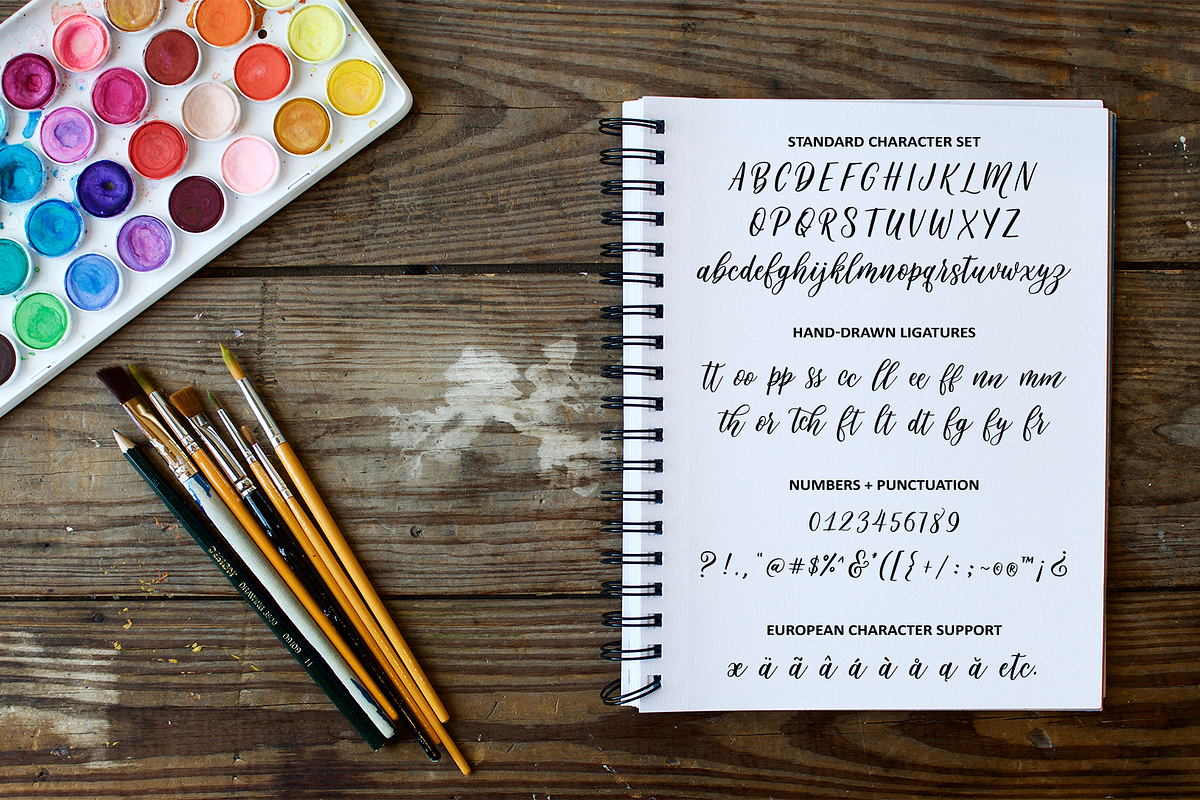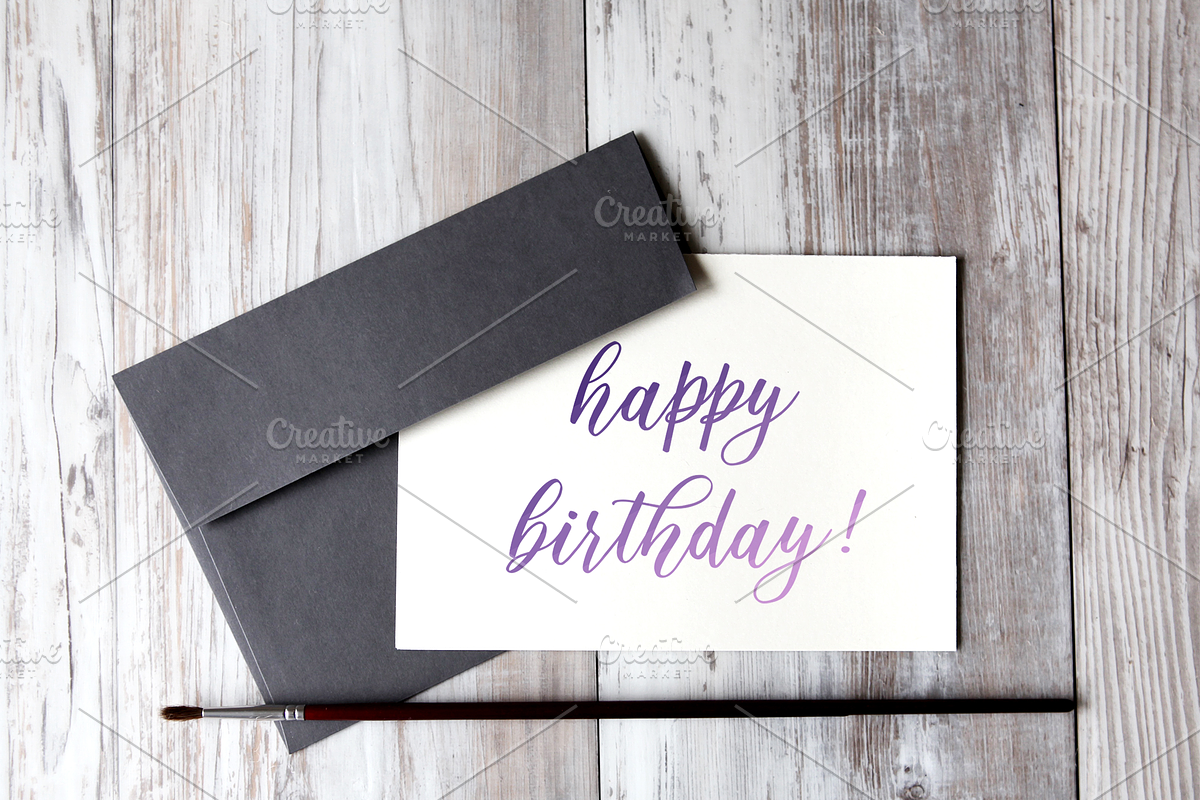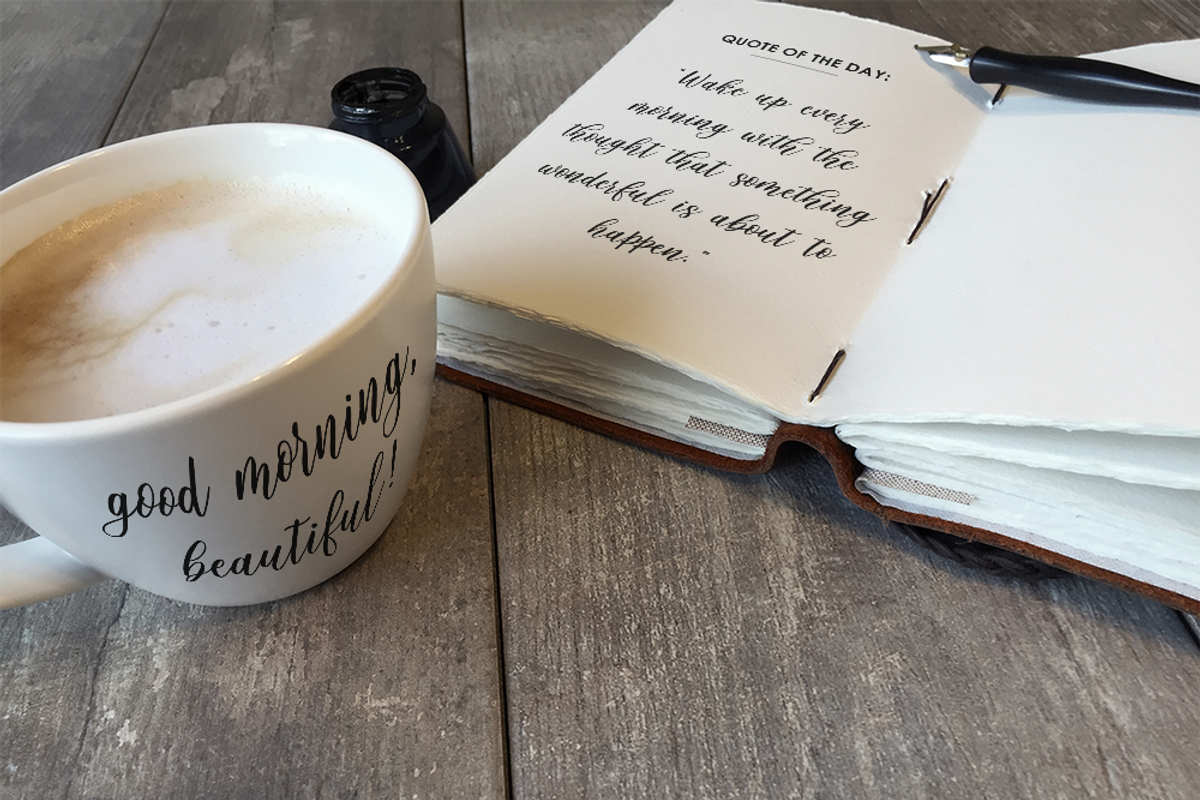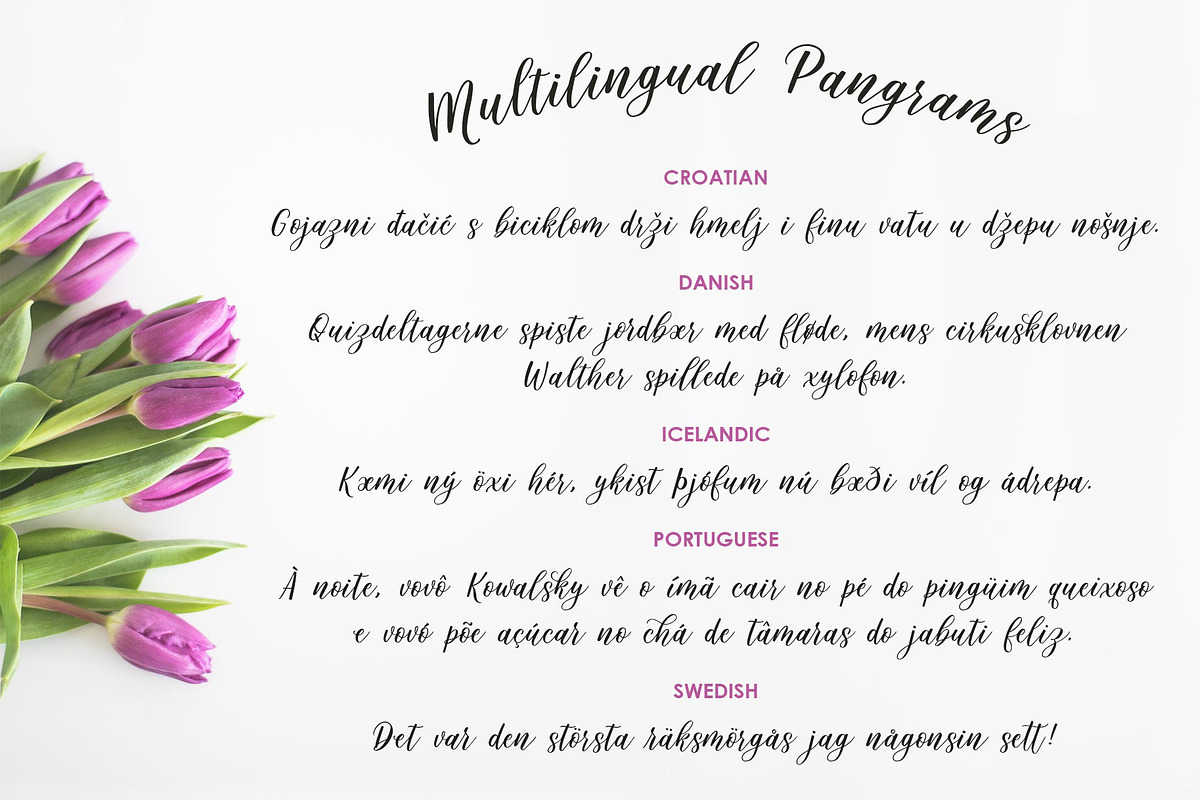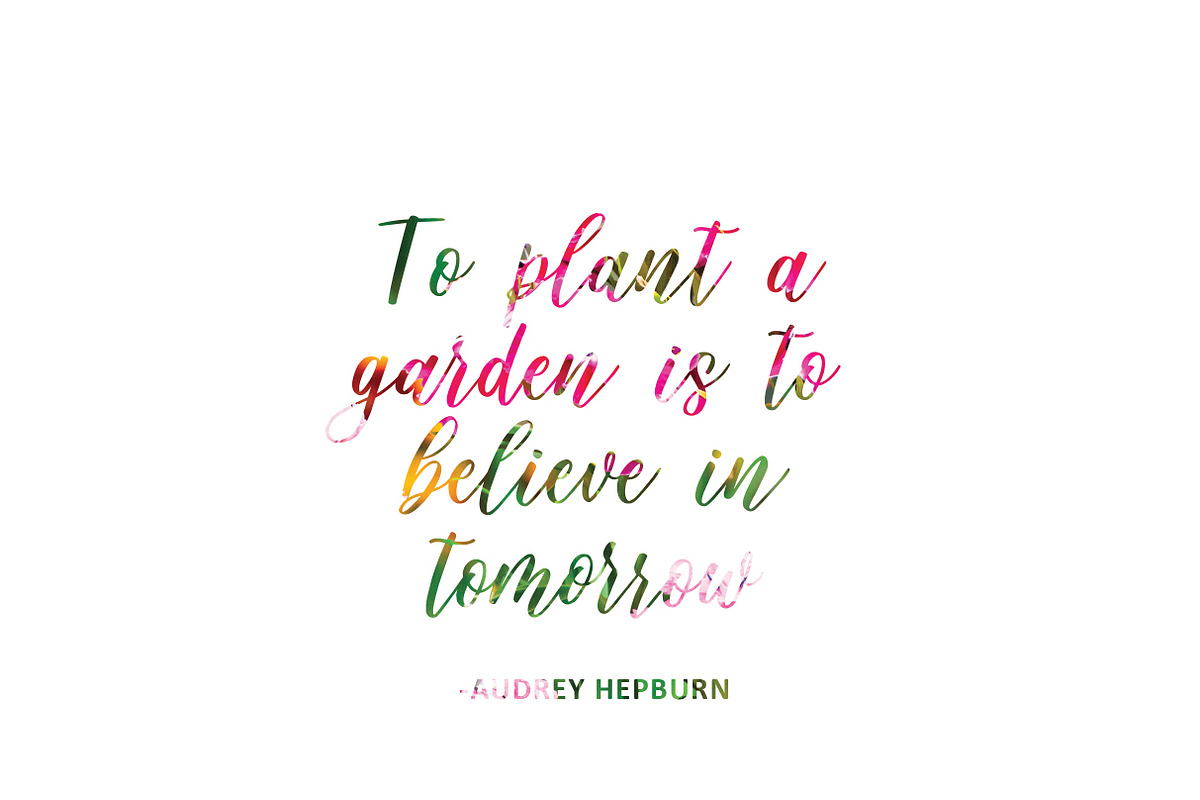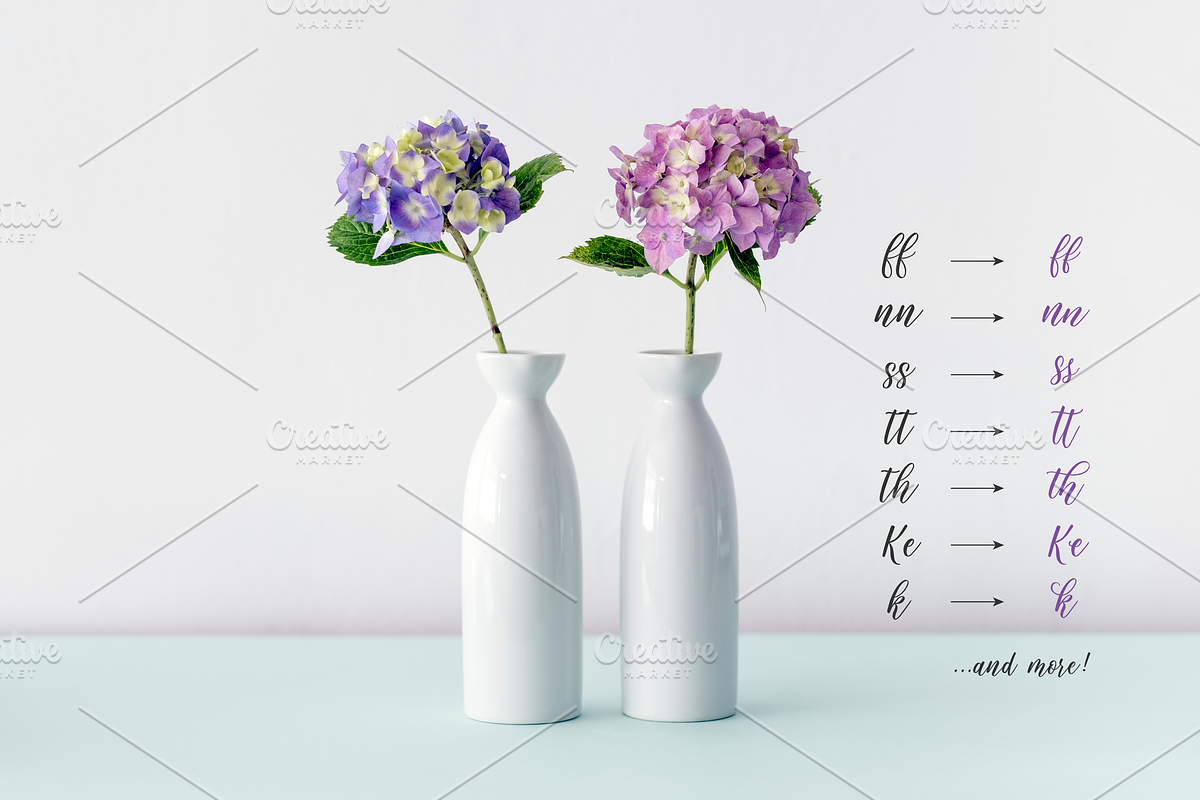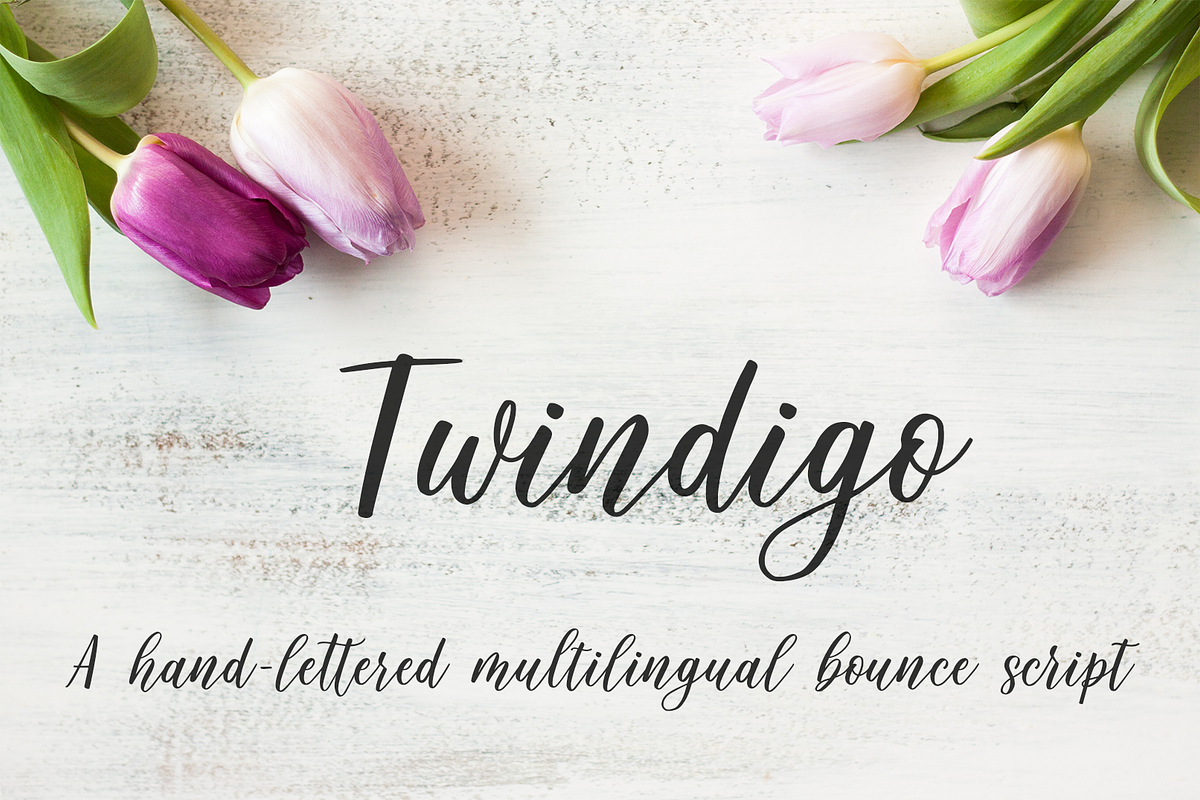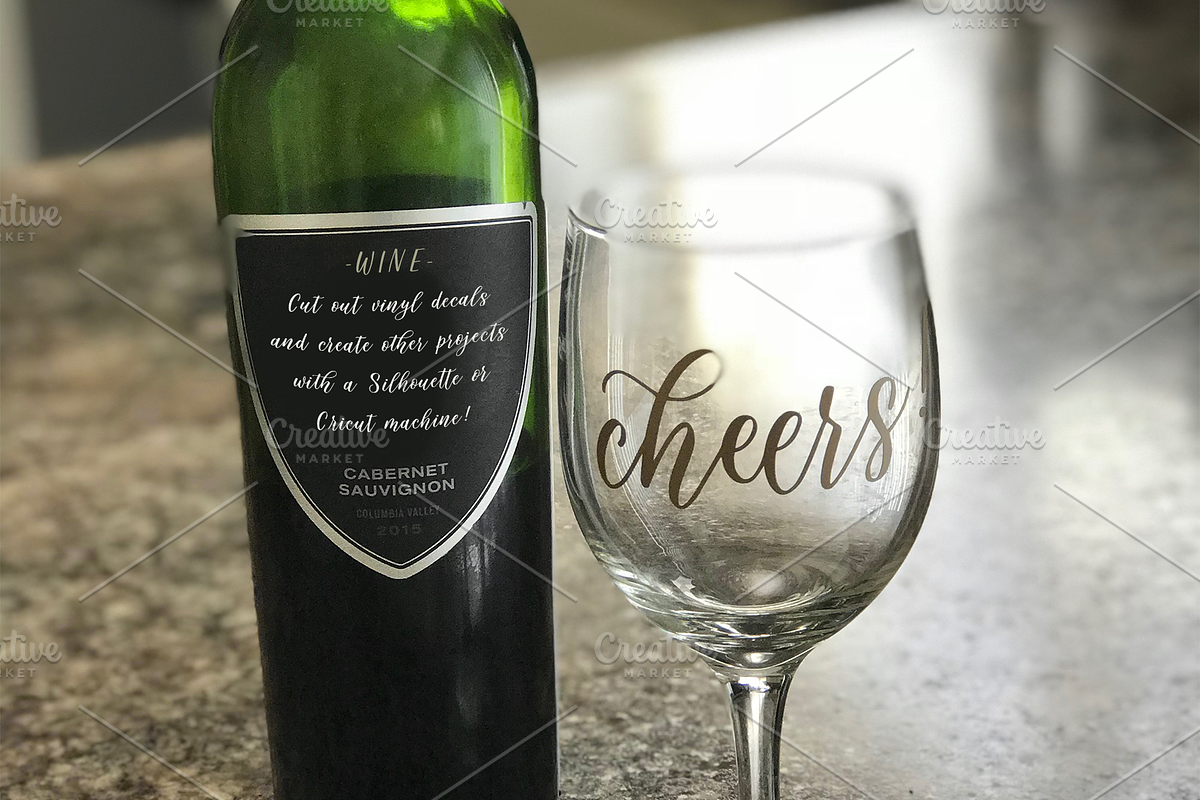
Twindigo Script Font
Twindigo Script was created by hand from a bouncy, brush lettered style from a twin calligrapher. It's full of extra features, including double letter variations and standard ligatures to give it a more hand-lettered look.
This bouncy script is perfect for social media posts, gifts and greeting cards, Cricut and Silhouette projects, prints, and more!
The font was specifically designed to be multilingual and supports English, Croatian, Danish, French, German, Hungarian, Icelandic, Polish, Portuguese, Romanian, Spanish, Swedish, Welsh, and additional Western European languages.